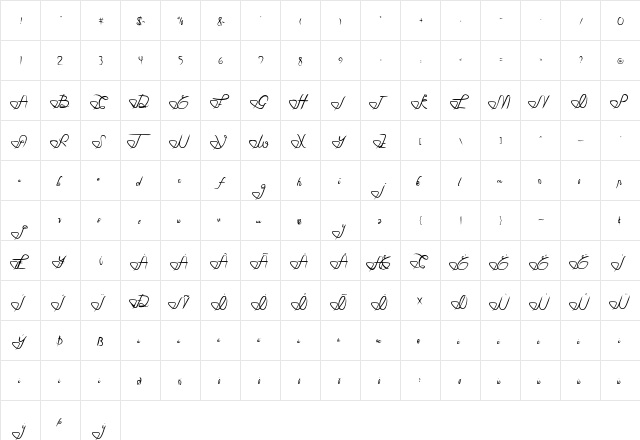
Alliterate Handy Regular
Design Context for Alliterate Handy Typeface
Alliterate Handy brings a calligraphic fluidity to the page — its connecting strokes and expressive curves give it an unmistakably human quality.
Font Pairing: Combine Alliterate Handy with a simple geometric sans for maximum contrast — the tension between flowing curves and clean structure is a classic typographic pairing.
Pro Tip: Pair Alliterate Handy with a clean sans-serif for supporting text. The contrast between fluid script and geometric structure creates an elegant typographic hierarchy.